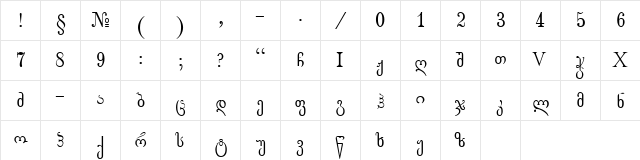
Dato _gogeb Font Preview
Dato _gogeb
Dato _gogeb Font Details
Design Context for Dato Typeface
Dato is a composed and adaptable typeface that performs quietly and consistently across a wide range of design contexts.